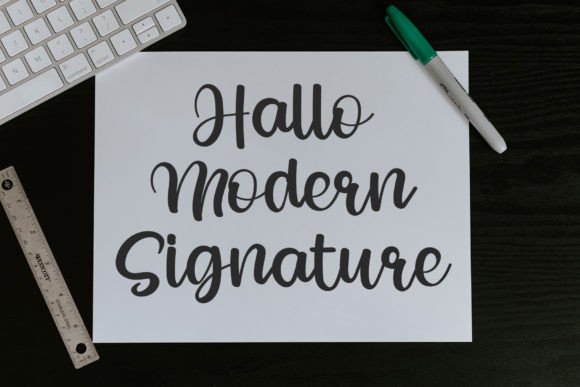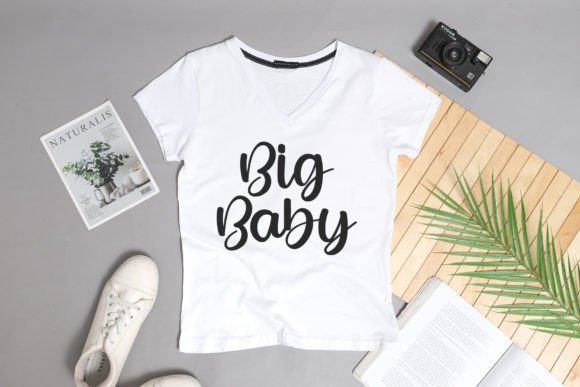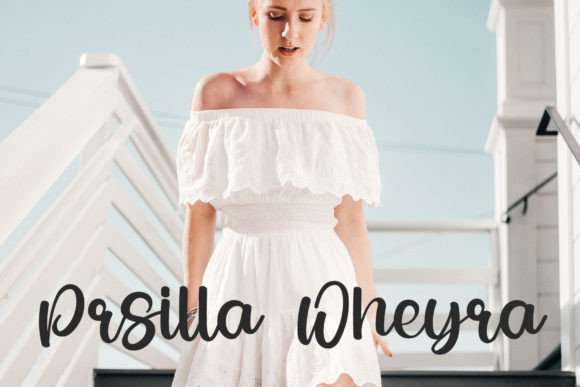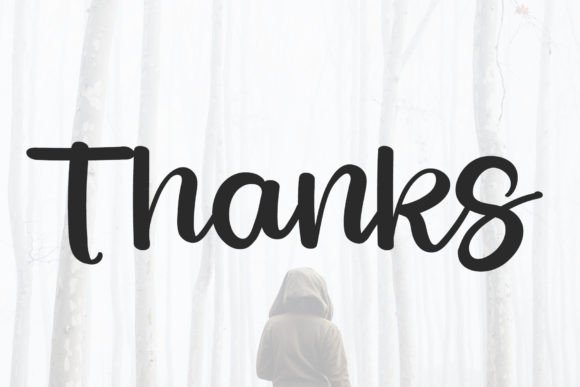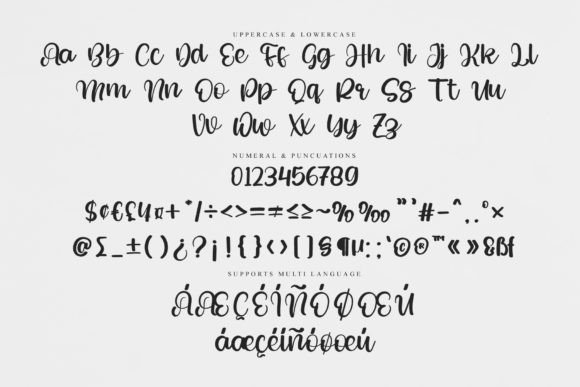
Reborn Font
About Reborn Font
Reborn is a modern and friendly handwritten font. This font is neatly crafted and highly detailed. Whatever the topic, this font will be a wonderful asset to your font library, as it has the potential to enhance any creation.